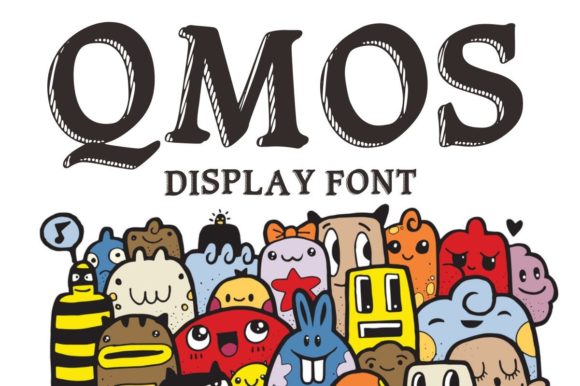
Behold! Qmos Font - The Daring Serif for Your Creative Play
We present to you Qmos Font, a remarkable serif font that will ignite your imagination with its captivating cartoon doodle theme. It's an artistic dance of carefully crafted characters, each with a modern twist, ready to take center stage in your design masterpieces.
Qmos Font is the ultimate choice for those seeking to inject a dash of playful charm into their creative projects. It's a visual treat, perfect for product packaging that demands attention, t-shirts with witty slogans, labels that speak volumes, posters that make a statement, and logos that leave an unforgettable mark.
Embrace the playful spirit of Qmos Font and let your creativity soar.
- Embark on a journey of visual storytelling with Qmos Font, the captivating serif with a mischievous charm.
- Unleash your imagination as you create product packaging that captivates customers at first sight.
- Transform ordinary t-shirts into wearable works of art, adorned with witty slogans brought to life by Qmos Font's unique style.
- Add a touch of whimsy to labels, making them more than just informative - they become part of the story.
- Craft posters that command attention, with messages that resonate and visuals that dance off the page.
- Design logos that leave an indelible impression, reflecting the essence of your brand with a playful twist.
Qmos Font is more than just a font; it's an invitation to let your creativity run wild. Seize the opportunity to stand out from the crowd and make a statement with every design you create. Qmos Font is your trusted companion, ready to bring your vision to life.